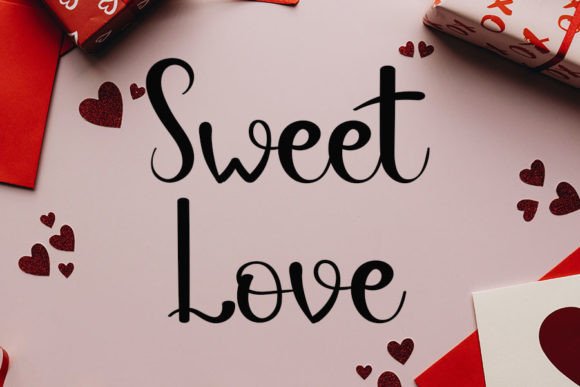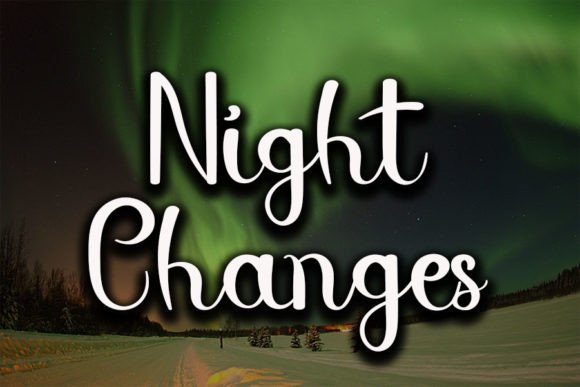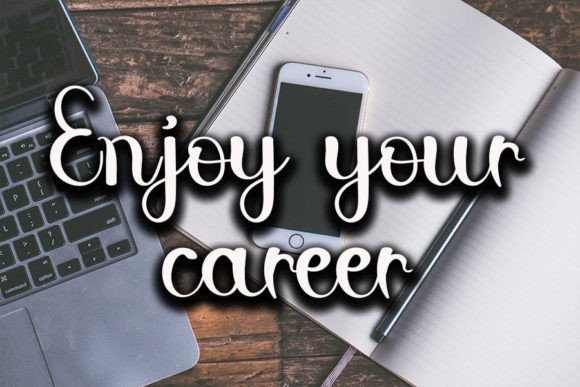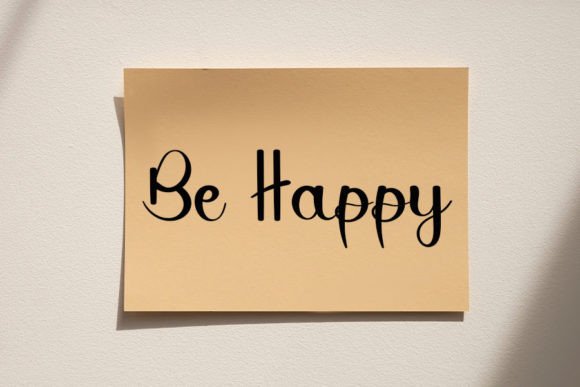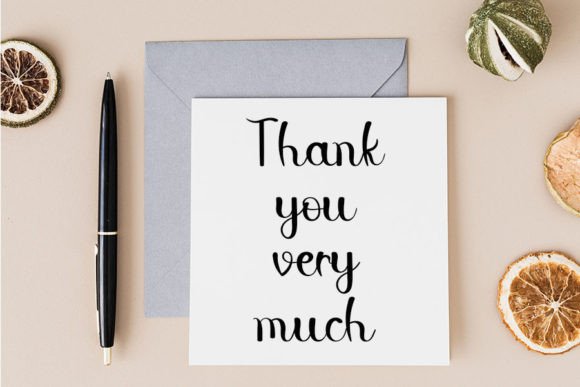
Introduction to Rusticy Font
Have you ever been stuck on a creative project, staring at a blank canvas or a blank screen, desperately searching for the perfect design element to bring your vision to life? That’s where Rusticy Font comes in – a vibrant and elegant handwritten font that’s sure to add a touch of personality to your work. With its unique blend of quirkiness and sophistication, this font is a treasure trove of creative possibilities.
Whether you’re a seasoned designer or just starting out, Rusticy Font is a valuable resource that’s sure to elevate your designs. Its clean and high-quality aesthetic makes it perfect for logos, branding, social media, and crafty DIY projects – and the best part? It’s available for free download, making it an accessible design resource for creatives of all levels.
Key Features of Rusticy Font
- Rusticy Font offers a unique blend of rugged and elegant styles, perfect for adding a touch of sophistication to any design.
- Features a transparent background, making it easy to layer and combine with other design elements.
- Includes a comprehensive set of glyphs, including Latin, Cyrillic, and Greek characters, making it a versatile design resource.
Honest Review: Rusticy Font
I recently had the opportunity to work with the Rusticy Font, and I must say it’s been a game-changer for my creative projects. The font’s unique, rugged aesthetic adds a touch of sophistication and elegance to any design. One of the standout features of this font is its high quality and versatility, making it perfect for a wide range of design resources.
- ⚠️ Limited customization options: While the Rusticy Font is highly versatile, it can be a bit restrictive in terms of customization options.
- ⚠️ Not suitable for all design styles: The font’s rugged aesthetic may not be the best fit for every design style or project.
Overall, I’m thoroughly impressed with the Rusticy Font. Its high quality, versatility, and ease of use make it a valuable addition to any design resource. With a little creativity, the possibilities are endless!
The Rusticy Font is ideal for creative projects that require a high-quality, unique font. Some common use cases include:
Branding and logos
Business cards and letterheads
Wedding invitations and event materials